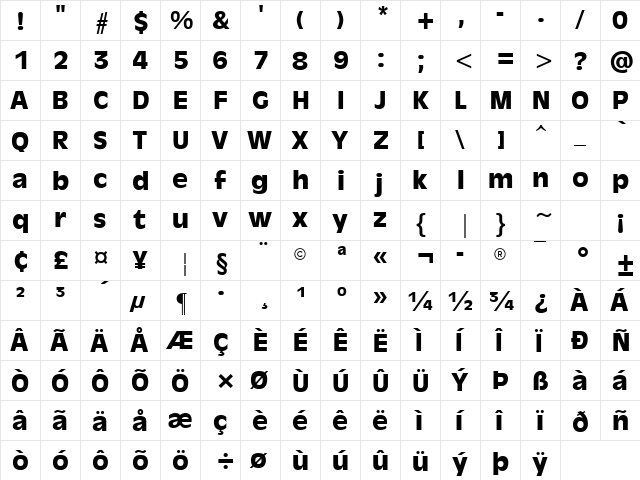
Pistachio-Bold Regular Font Preview
Pistachio-Bold Regular
Design Context for Pistachio-Bold Typeface
Pistachio-Bold offers clean, dependable letterforms without strong stylistic allegiance, making it a practical choice for designers who need flexibility. Its bold stroke weight gives it real presence on the page.